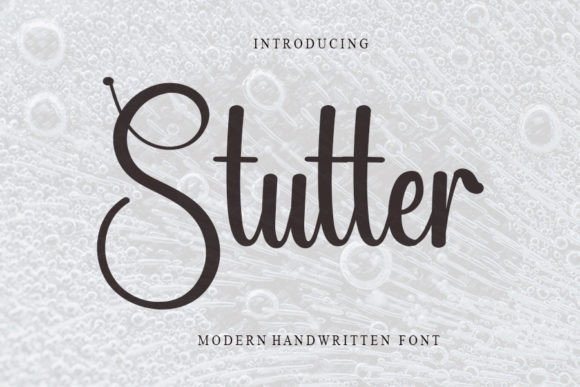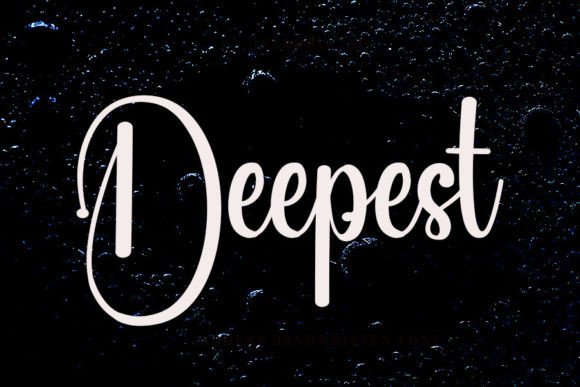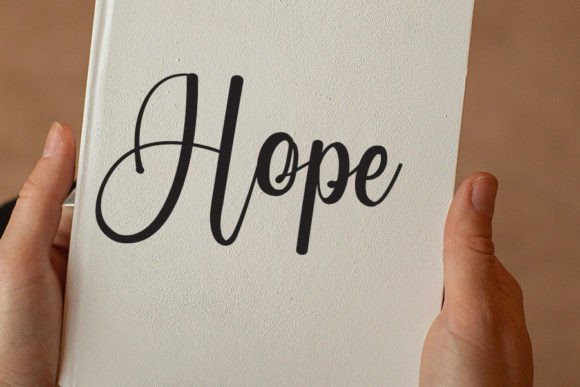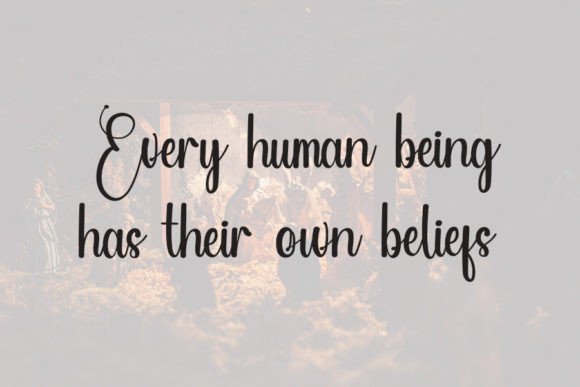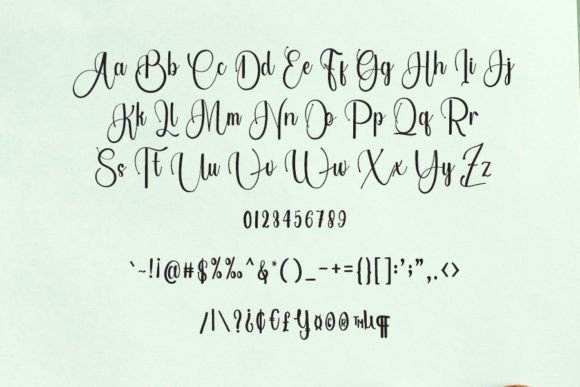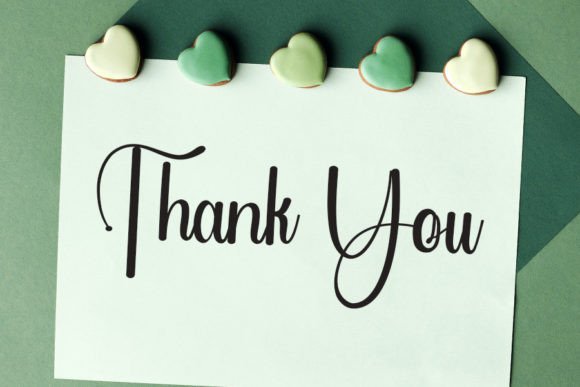
Stutter Font
About Stutter Font
“Stutter” is a cool handwritten font that exudes a modern vibe while maintaining a spotless and clean form. This font takes inspiration from classic calligraphy, resulting in a balanced and varied design. “Stutter” was meticulously crafted to enhance the beauty of your projects and elevate their visual appeal.
The font’s cool and modern design adds a touch of contemporary style to your creative work. It is suitable for a wide range of design projects where you want to convey a sense of balance, variety, and sophistication. “Stutter” can be used effectively in branding, logo design, product packaging, invitations, and much more.
In the world of design, fonts play a pivotal role in conveying style, mood, and visual identity. “Stutter” excels in these aspects by offering a clean and modern script style that is both versatile and visually appealing. Its aesthetics infuse your designs with a sense of elegance and contemporary flair, making them engaging and memorable.
In summary, “Stutter” is more than just a font; it’s a cool and modern design tool that can enhance the beauty of your projects. Its clean and balanced design is ideal for designers seeking to create work that is both stylish and sophisticated. Whether you’re an experienced designer or just starting your creative journey, “Stutter” is the font that can help you create designs that are truly remarkable and visually pleasing.